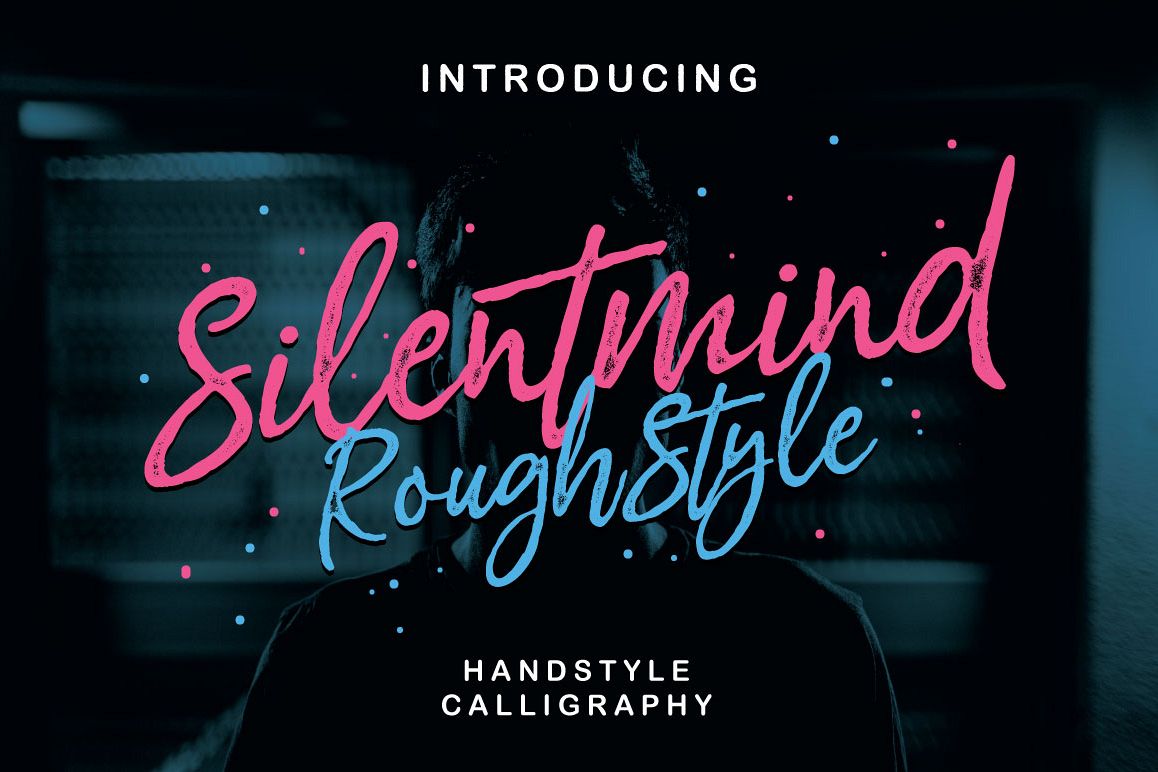
Silentmind Rough Typeface
Introducing Silentmind Rough Typeface
Silentmind Rough Typeface are Modern Calligraphy Script Typeface with amazing character & a multitude of letter variations to make that perfect and unique design. Ideal for a logo, a name tag, handwritten quotations, product packaging, goods, social media and greeting cards. It contains a complete set of lower and upper case letters, assorted punctuation, numbers, swash and multilingual support.
The font also contains several ligatures and contextual alternates for lower case characters, accessible in the Adobe Illustrator Glyphs panel, or under Stylistic Alternates in the Adobe Photoshop OpenType menu.